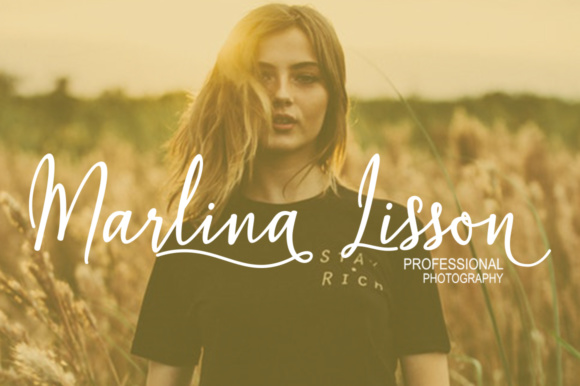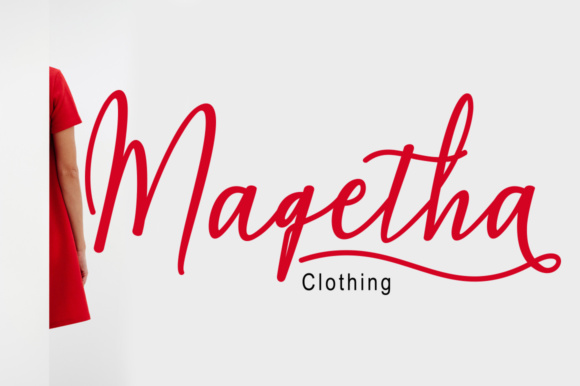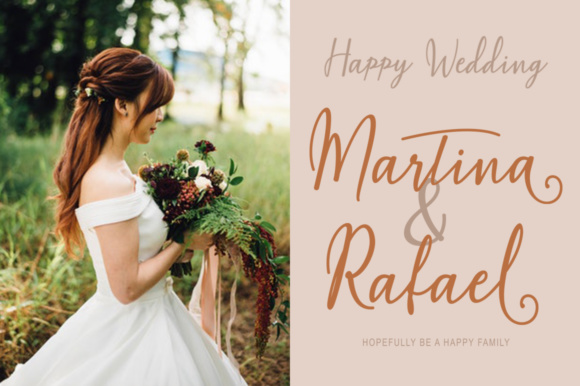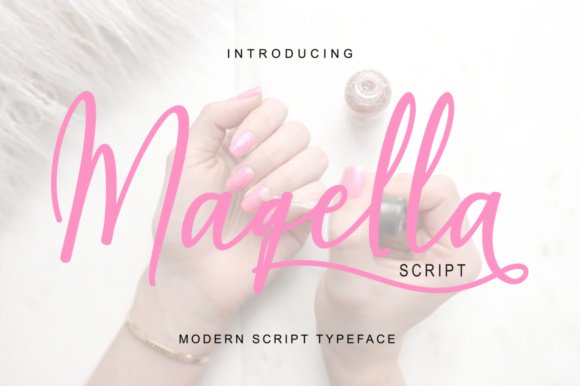
Introduction to Maqella Font
Maqella is a gorgeous calligraphy font, perfect for use in a wide range of projects.
This script is a great way to add a handcrafted and irregular (but appealing) look to your print or digital works .
Maqella Font offers exceptional quality and versatility, making it a valuable addition to your design toolkit. Whether you’re creating for personal projects or commercial use, Maqella Font delivers professional results.